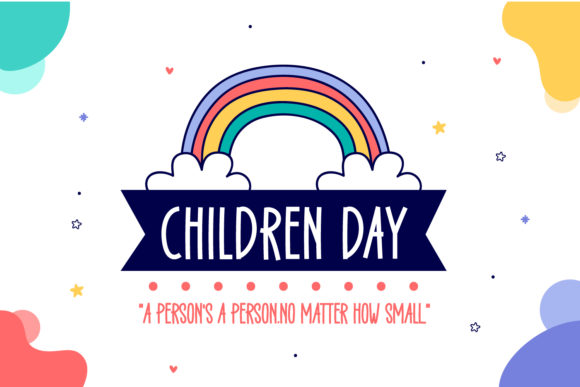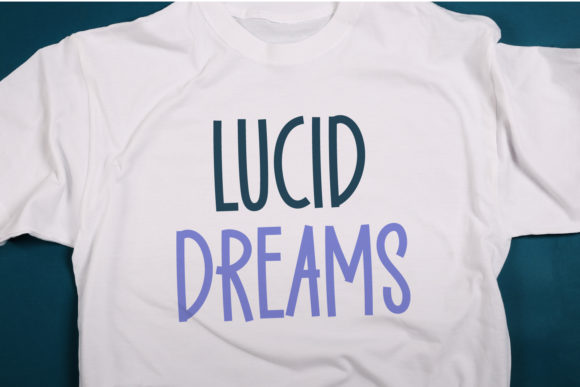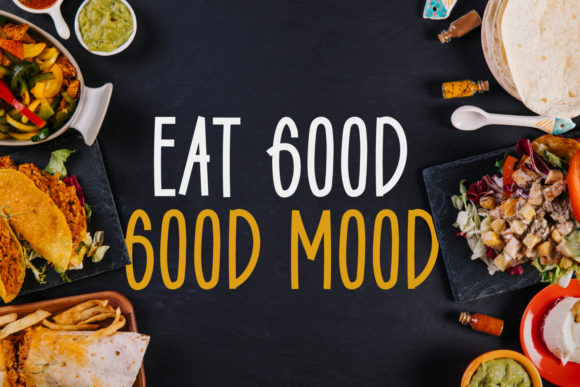
Best Friend Font
Best Friend is a fun and neat display font. This font is perfect for children themed designs, especially when combined with bright colors.